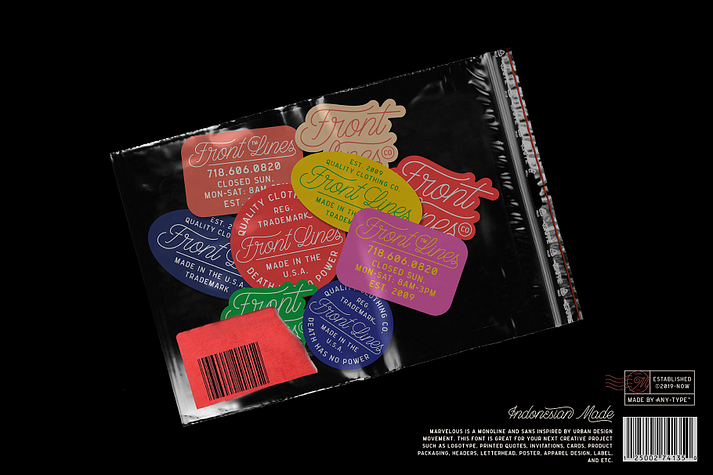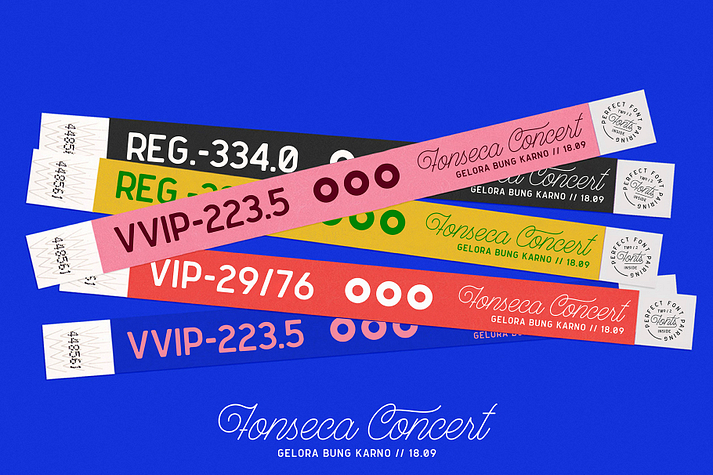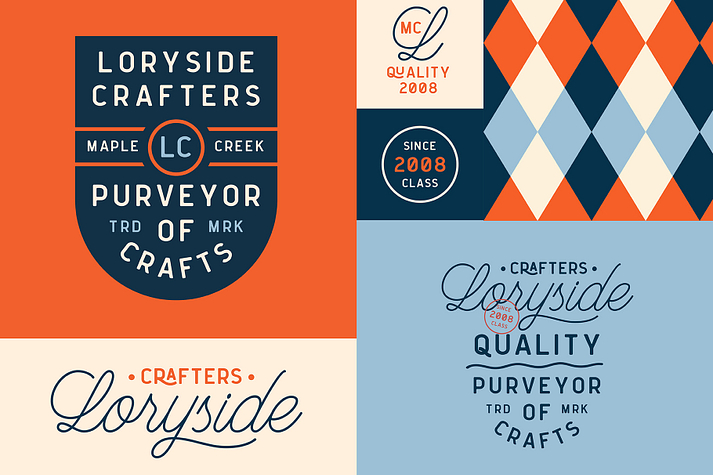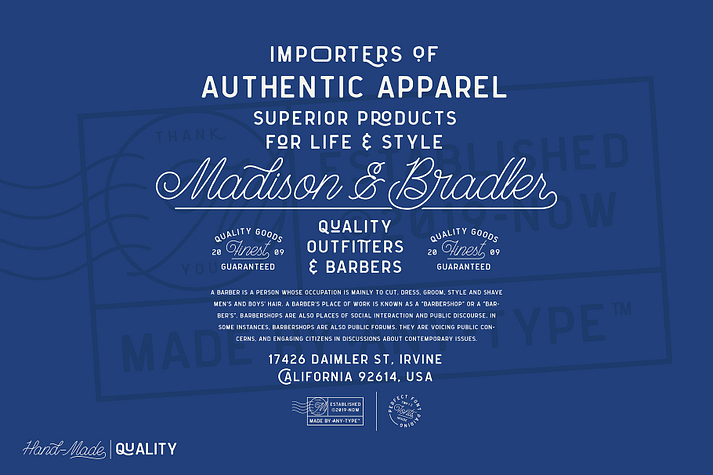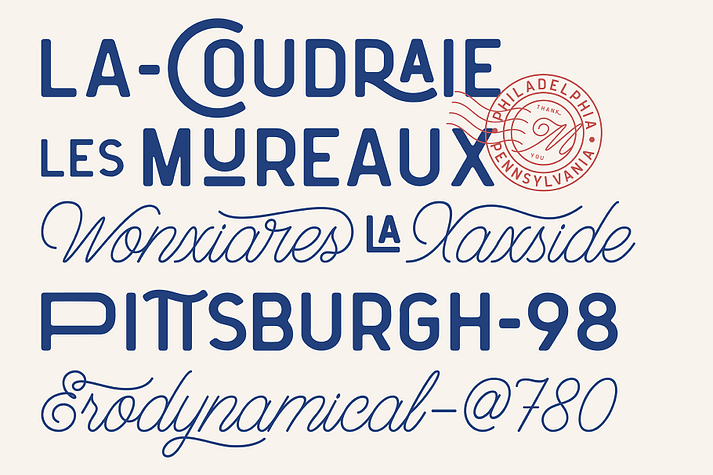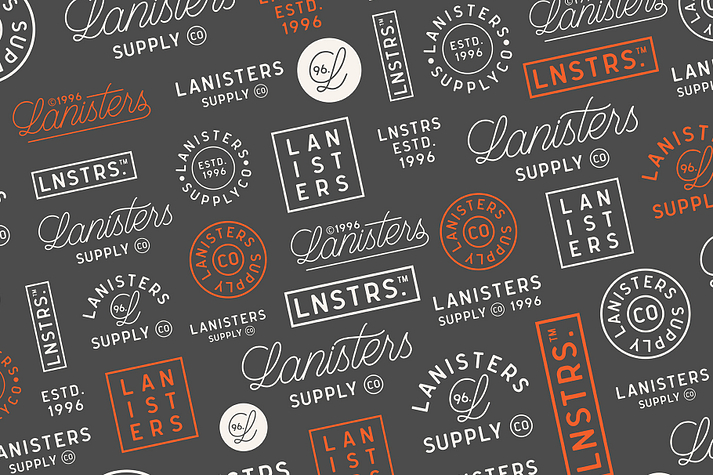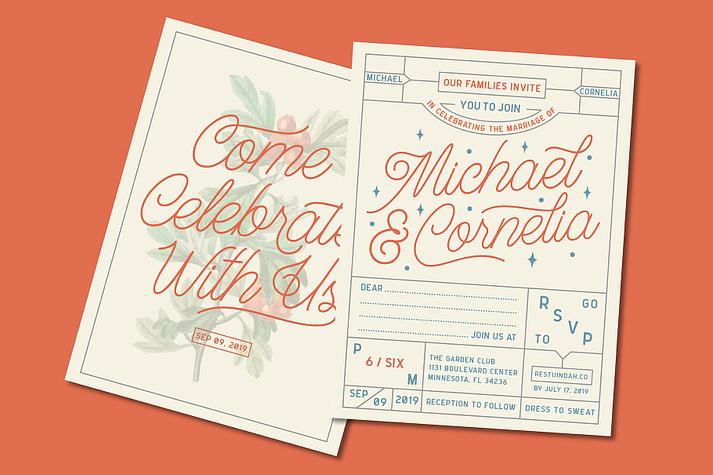
Marvelous
Marvelous is a display sans font family. This typeface has two styles and was published by Any-Type Foundry.
MARVELOUS FONT DUO (MONOLINE & SANS)
MARVELOUS is a beautiful monoline and sans serif font, perfect for logo design, branding, clothing design, signage, posters, wedding invitations and so much more! My goal with this fonts was to create an easily legible fonts which would work for a wide variety of purposes. This fonts retains my personality within the characters as they were initially based off my own handwriting and later tidied up to create a set of consistent characters. Having that handmade feel and personal touch certainly gives it a hint of authenticity; perfect for any of your upcoming projects. Don’t miss out!
MARVELOUS FONT DUO FEATURES
• Opentype Features
• So many alternates style on each font
• Number, Punctuation and Symbol
• Ligature and Discretionary Ligature (only for sans)
• Multilingual support